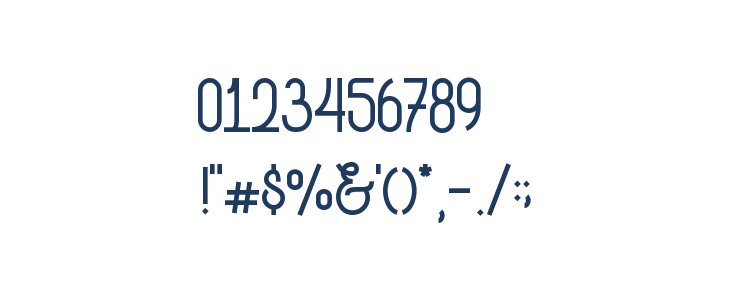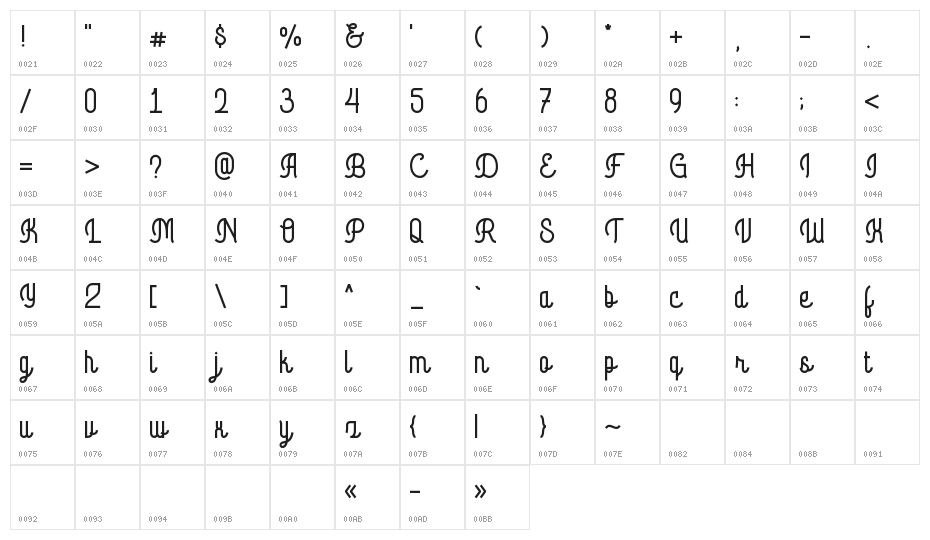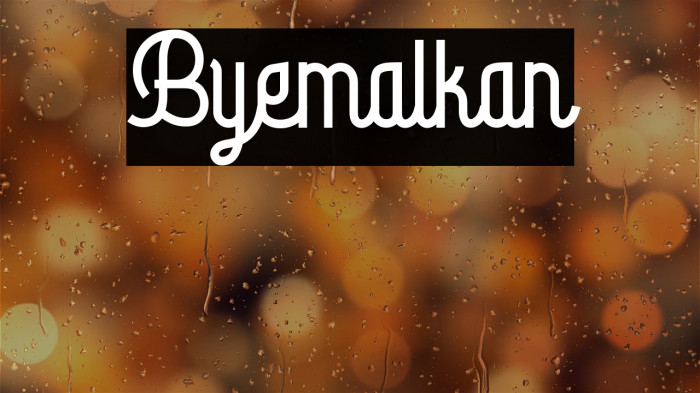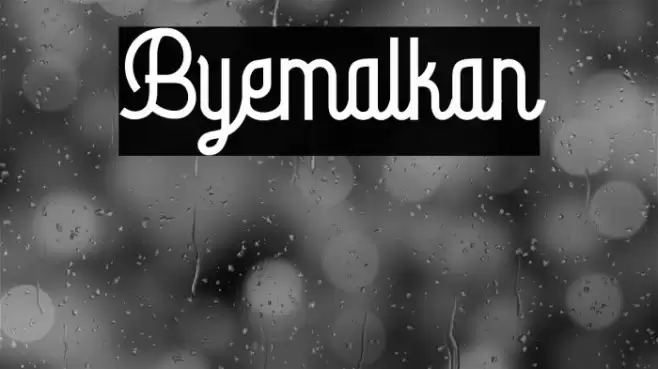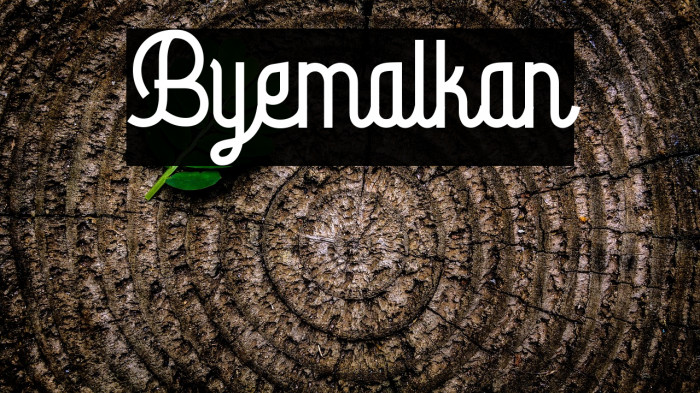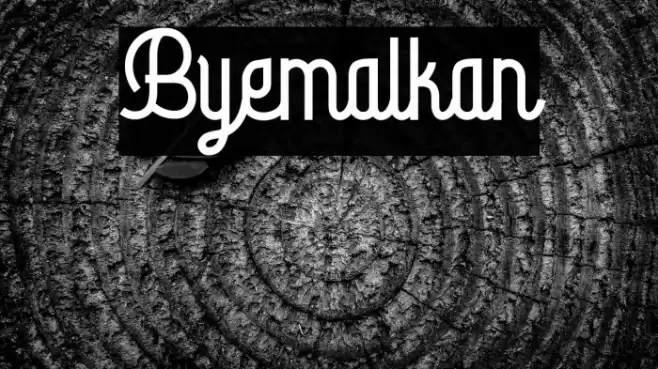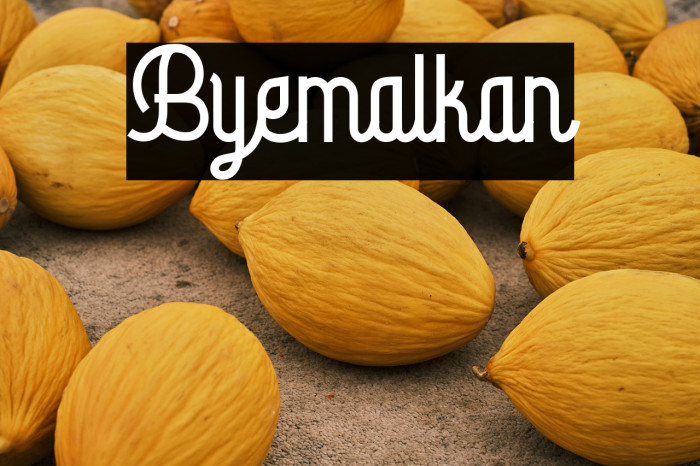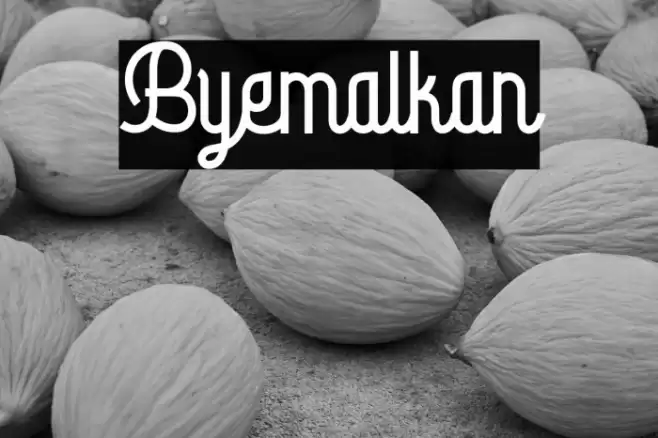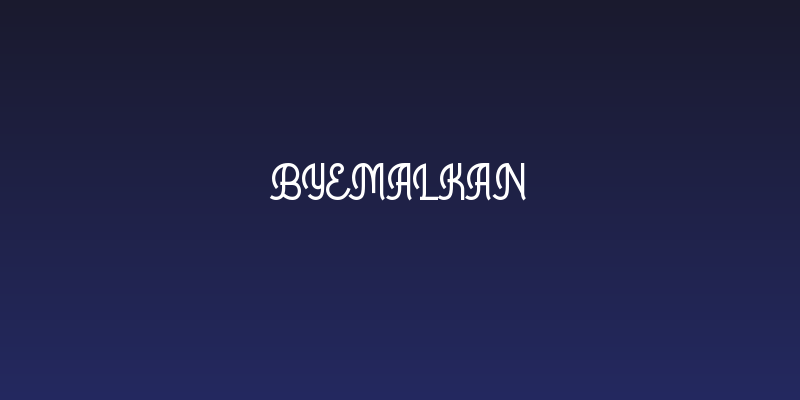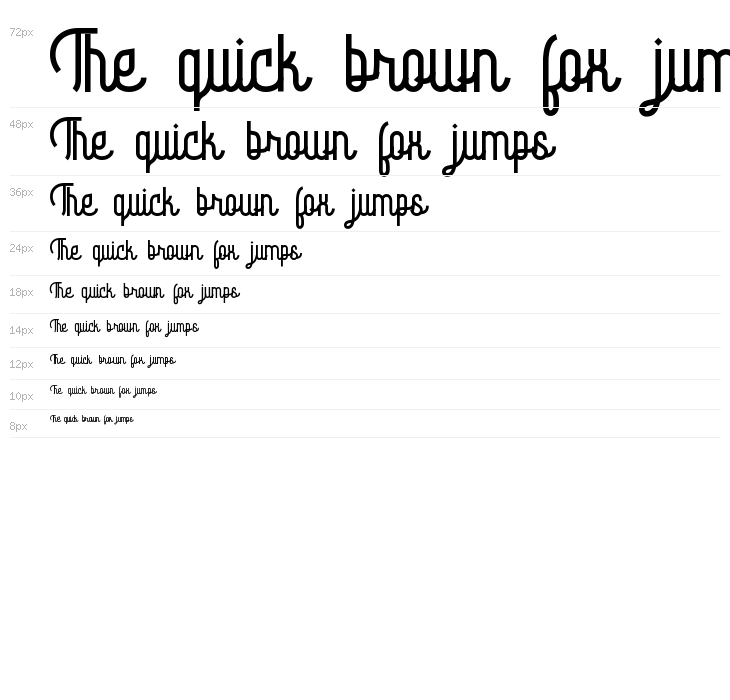
Byemalkan Font
Byemalkan Description
This font features a unique blend of modern and vintage styles, characterized by its elegant curves and distinct letterforms. The uppercase letters exhibit a flowing, script-like quality, while the lowercase letters maintain a more structured appearance. The numerals are clear and legible, with a slight decorative flair that complements the overall design. Special characters are thoughtfully integrated, maintaining the font's cohesive aesthetic. The font's design is both sophisticated and approachable, making it suitable for a variety of applications.
| Overall Style | Modern, Vintage |
| Proposed Projects | Ideal for branding, invitations, packaging, and editorial design. |